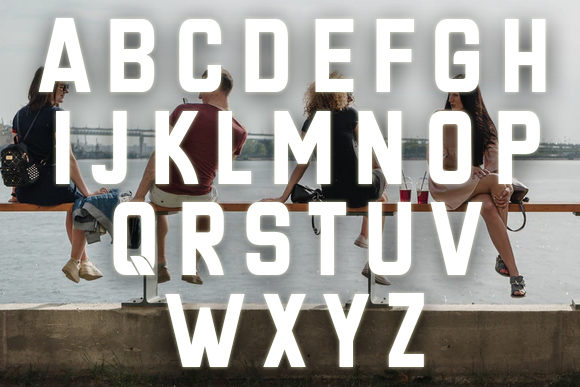
Introducing Hangout Font: The Ultimate Display Font for Creative Minds
Are you tired of using the same old fonts for your designs? Look no further! Hangout Font is here to revolutionize your creative projects with its bold and sharp-looking style. This stunning display font is designed to inspire your work and take your designs to the next level. In this article, we’ll explore the features and endless possibilities of Hangout Font, and why it’s a must-have for designers and crafters.
What is Hangout Font?
Hangout Font is a modern display font that boasts a unique and striking appearance. Its bold and sharp lines make it perfect for headlines, titles, and any other design element that requires a strong visual impact. This font is designed to grab attention and make a statement, making it ideal for a wide range of creative projects, from branding and advertising to packaging and digital media.
Key Features of Hangout Font
- Bold and Sharp-Looking: Hangout Font features bold and sharp lines that give it a distinctive and eye-catching appearance.
- Highly Versatile: This font is suitable for a wide range of creative projects, from print and digital media to branding and advertising.
- Easy to Read: Despite its bold style, Hangout Font is easy to read, making it perfect for headlines and titles.
- Unique and Creative: Hangout Font is designed to inspire creativity and add a unique touch to your designs.
Endless Possibilities with Hangout Font
Hangout Font offers endless possibilities for designers and crafters. Here are just a few examples of how you can use this amazing font:
- Branding and Logo Design: Use Hangout Font to create bold and memorable logos that make a statement.
- Advertising and Marketing: Hangout Font is perfect for headlines and titles in advertising and marketing materials.
- Packaging Design: Add a touch of creativity to your packaging designs with Hangout Font.
- Digital Media: Use Hangout Font to create eye-catching social media graphics, blog posts, and website headers.
Why Choose Hangout Font?
With so many fonts available, why choose Hangout Font? Here are just a few reasons why Hangout Font stands out from the crowd:
- Unique Style: Hangout Font has a unique and distinctive style that sets it apart from other fonts.
- High-Quality Design: Hangout Font is designed to high standards, ensuring a clean and crisp appearance.
In conclusion, Hangout Font is a bold and sharp-looking display font that is sure to inspire your creative projects. With its highly versatile design, endless possibilities, and unique style, Hangout Font is a must-have for designers and crafters. Whether you’re looking to create bold and memorable logos, eye-catching advertising materials, or stunning packaging designs, Hangout Font is the perfect choice. So why wait? Download Hangout Font today and take your designs to the next level!